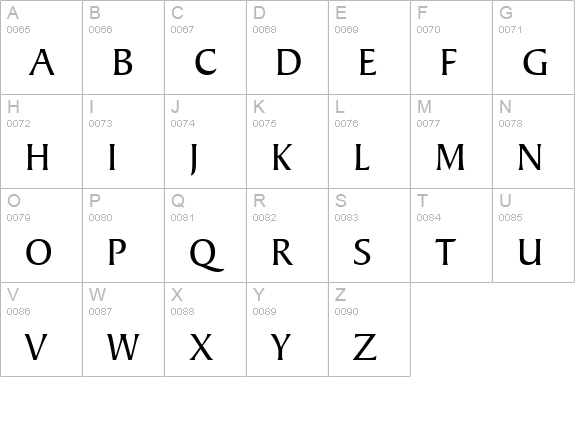
Persuasion SSi Font Details
Introducing Persuasion SSi font, an exquisite and versatile typeface that effortlessly combines elegance with modernity. With its sleek and sophisticated design, Persuasion SSi is the perfect choice for any project that seeks to capture attention and leave a lasting impression. This font boasts a wide range of weights and styles, allowing you to effortlessly adapt it to your creative needs. Whether you're designing a logo, crafting a captivating headline, or creating stunning invitations, Persuasion SSi offers endless possibilities to elevate your work to new heights. But what truly sets Persuasion SSi apart is its exceptional quality and attention to detail. Every curve and line has been meticulously crafted to ensure a seamless and visually stunning reading experience. Its legibility remains uncompromised, even at small sizes, making it an excellent choice for both print and digital media. And the best part? Persuasion SSi is freely available to download at FontsMarket.com. This means that you can instantly obtain this remarkable font and incorporate it into your projects without any cost. Whether you're a professional designer or a passionate hobbyist, Persuasion SSi offers you the opportunity to create with style and sophistication, all without breaking the bank. So why settle for ordinary when you can have extraordinary? Download Persuasion SSi font today and let your creativity soar to new heights. Unleash the power of this exceptional typeface and captivate your audience with its charm and elegance. With Persuasion SSi, you'll never settle for less than perfection.